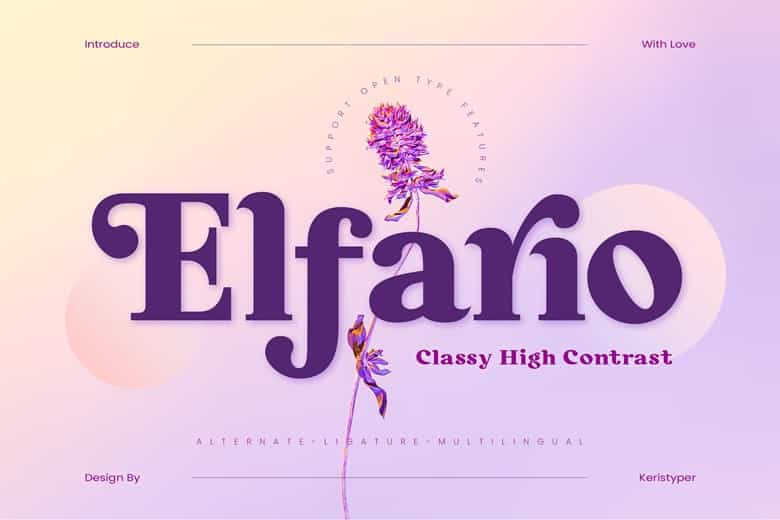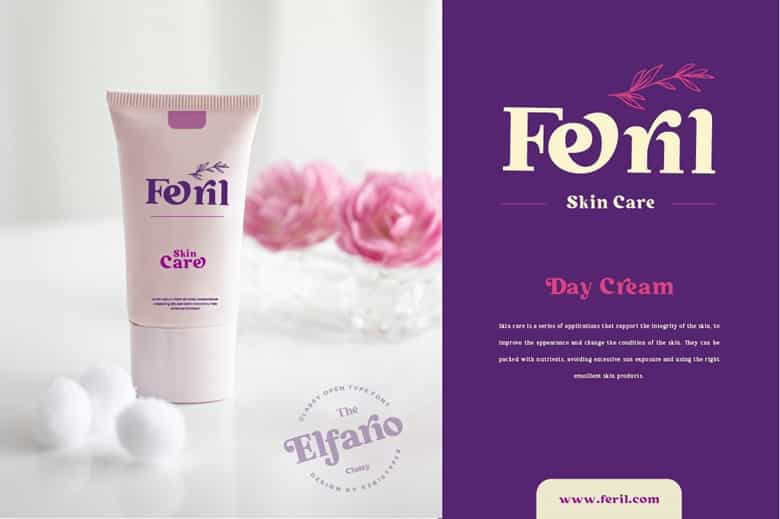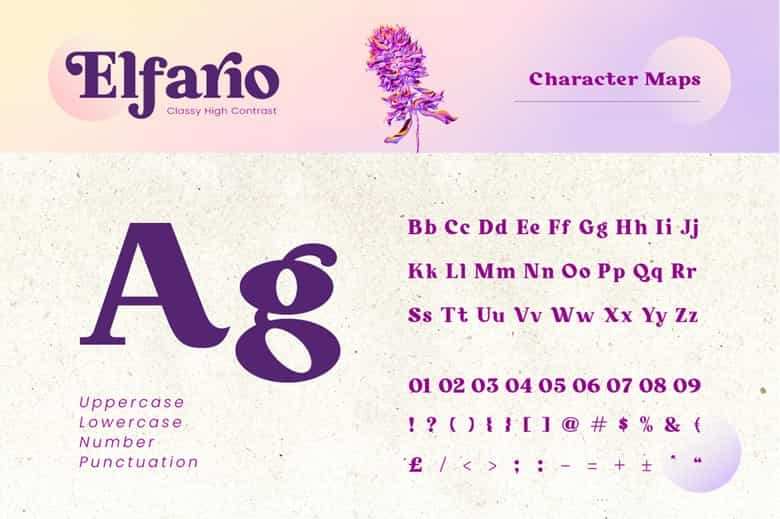
Elfario is a new high contrast serif typeface that looks classical and very much speaks of style and elegance. With its elegant, elongated lettering, sharp contrast in stroke thickness and refined elegance, it is suitable for luxury branding, magazine design, and high fashion advertising.